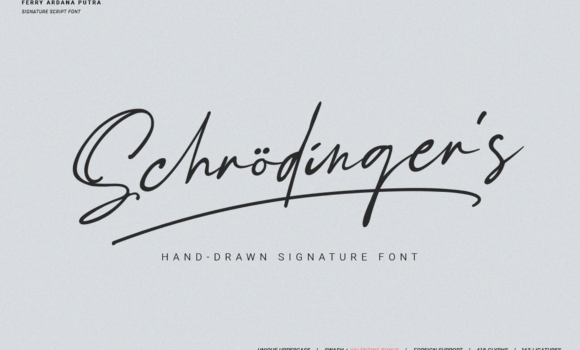
Schrödinger’s Font – Free Download Introduction to Schrödinger’s Font Schrödinger’s is a beautiful light handwritten font with a unique feel and a stunning impact. 📸 Preview Gallery 6 images 📌 Product Name Schrödinger’s Font 👤 Author Ardana Creative 📂 Category